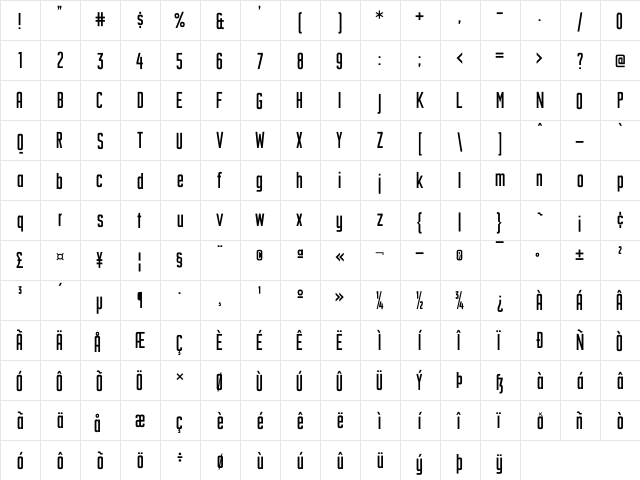
Sturkopf Grotesk Medium
Design Context for Sturkopf Grotesk Typeface
Sturkopf Grotesk takes a clean, functional approach — its unadorned letterforms prioritise legibility and work reliably across screen and print environments.
Font Pairing: Works well alongside a characterful serif or display font that can carry the expressive load while Sturkopf Grotesk handles the functional copy.
Pro Tip: Pair Sturkopf Grotesk with a display or serif font for headlines — its neutral character makes it an excellent supporting player in complex typographic systems.